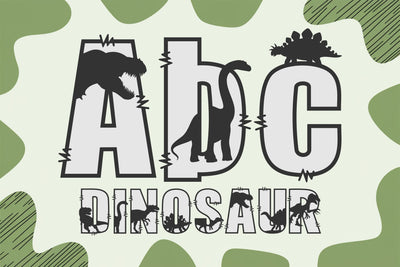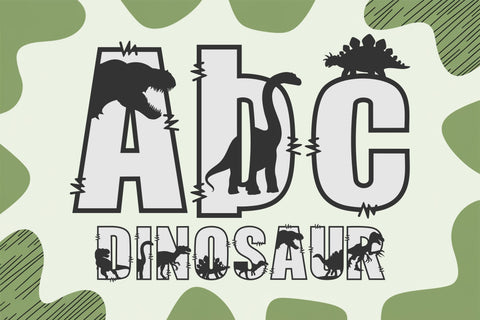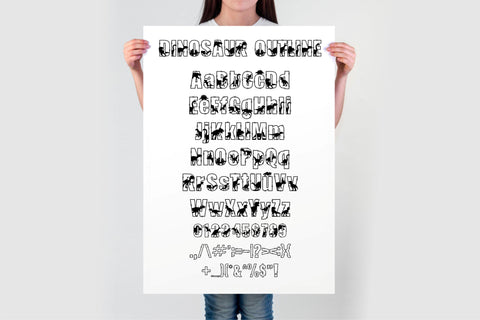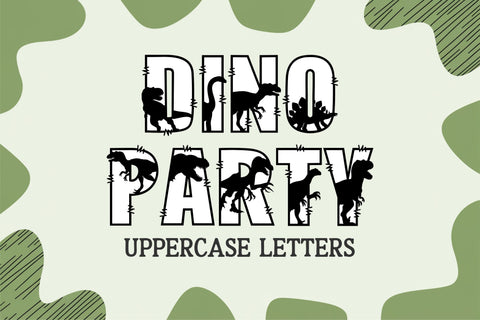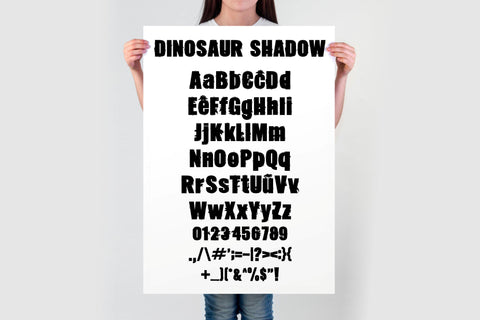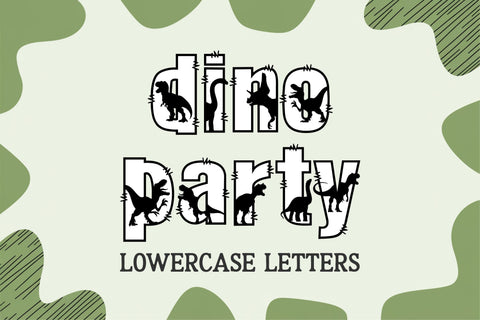
Dinosaur Font SVG | Dino Letters | Prehistoric Alphabet
Introducing the Dinosaur Font SVG—a bold, prehistoric-themed typeface perfect for kids' birthday invitations, nursery prints, adventure books, t-shirts, and DIY crafts. This fun font features dinosaur silhouettes and barbed wire details, adding a playful yet rugged touch to your designs. Compatible with Cricut, Silhouette, Canva, Photoshop, Illustrator, and more, it includes OTF, TTF, SVG, PNG, EPS, and DXF formats. The full alphabet (A-Z), numbers, symbols, and bonus dinosaur silhouettes and glyphs are included. Download now to create roaring dinosaur-themed projects!